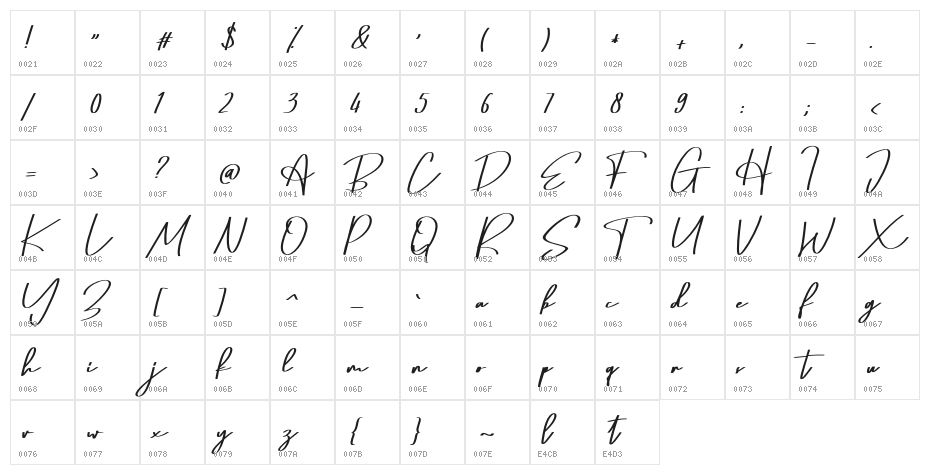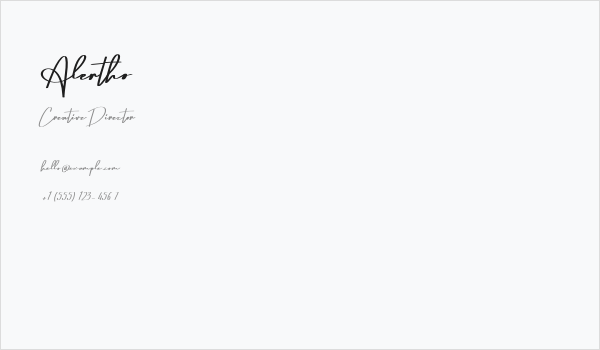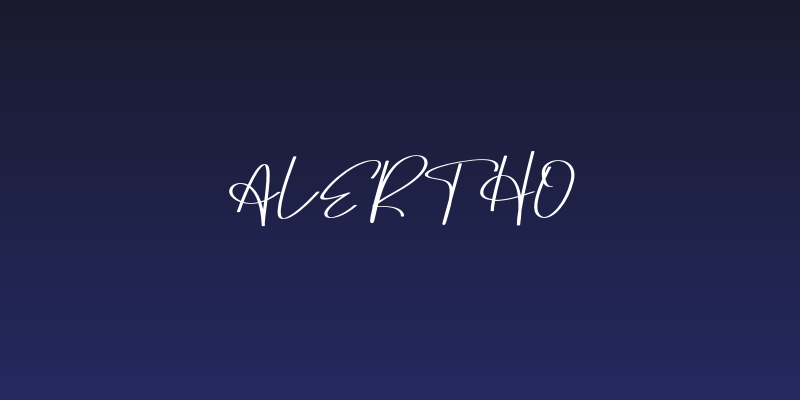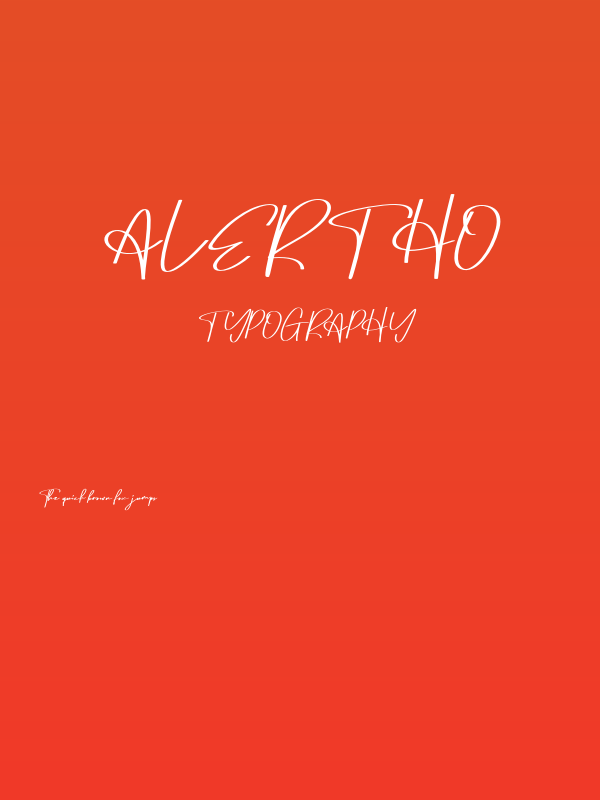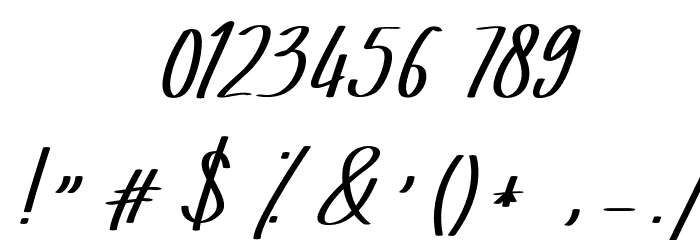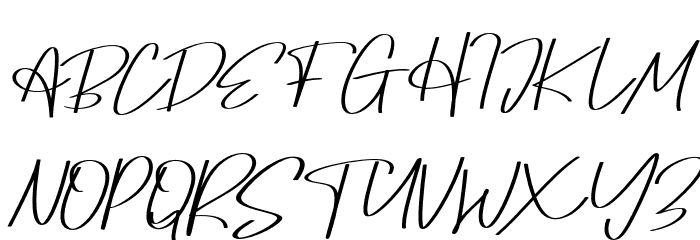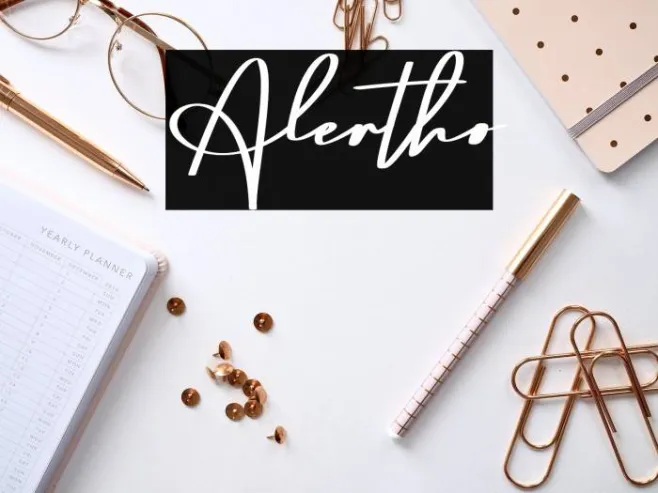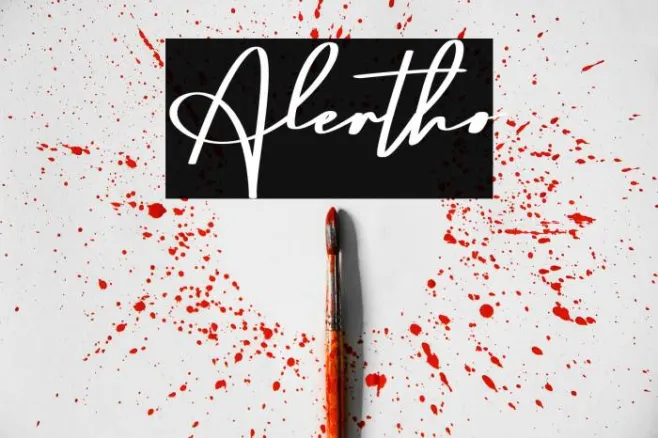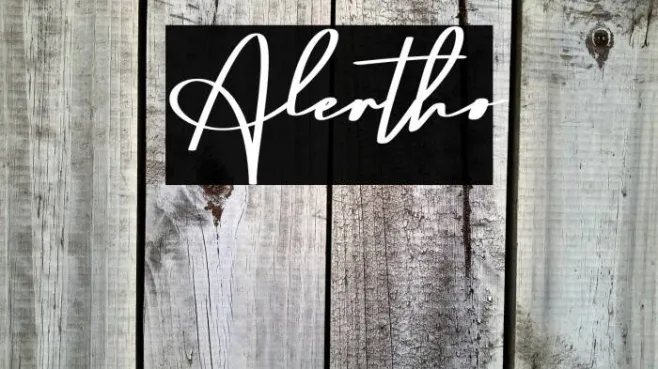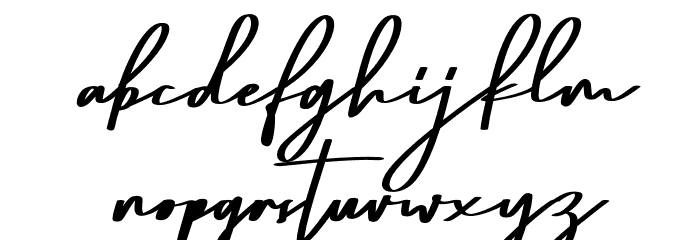
Alertho Font
Alertho Description
This font exudes a lively and expressive handwritten style, characterized by its fluid and dynamic strokes. The uppercase letters are elegantly elongated, with a slight slant that adds a sense of motion and grace. The lowercase letters maintain a consistent flow, enhancing readability while retaining a personal touch. Numbers are clear and distinct, complementing the overall aesthetic. Special characters are thoughtfully designed, integrating seamlessly with the alphabet. This font's playful yet sophisticated appearance makes it versatile for various creative applications.
| Proposed Projects | Ideal for wedding invitations, greeting cards, personal branding, and creative projects that require a personal touch. |